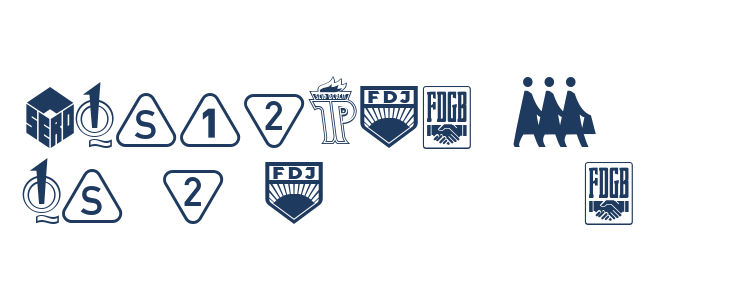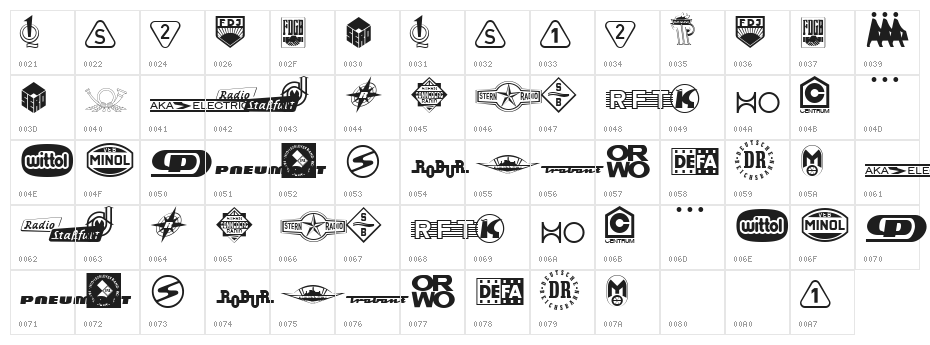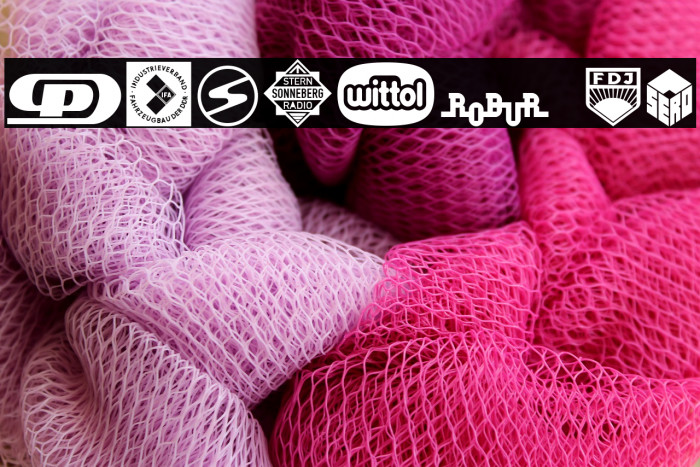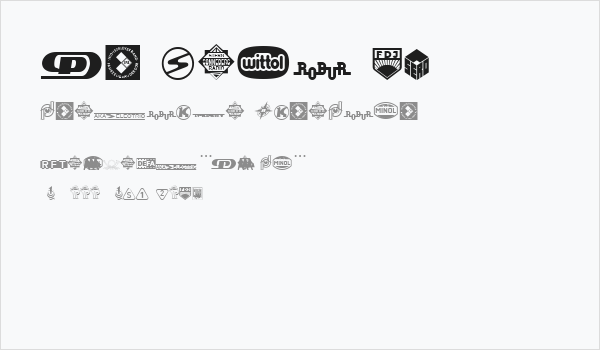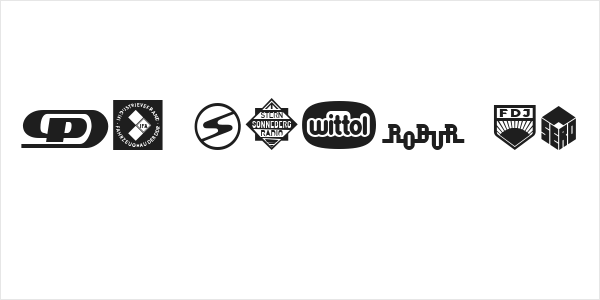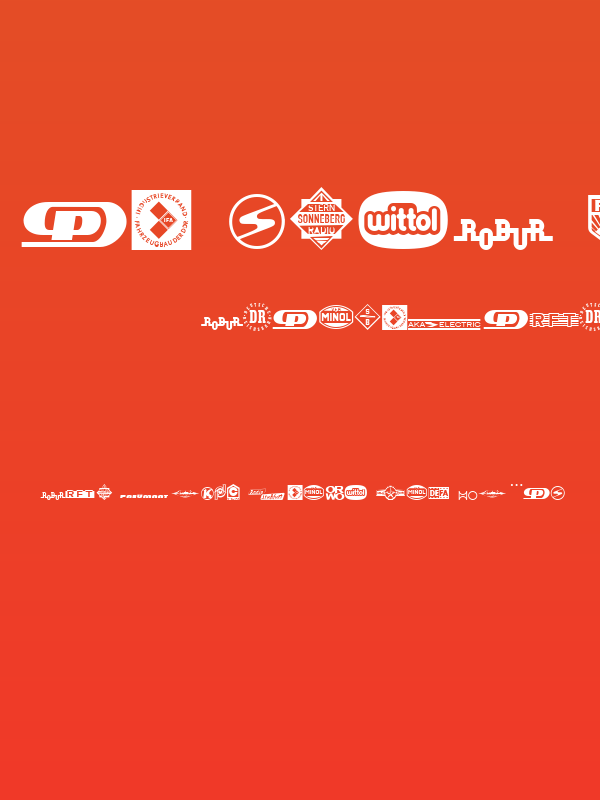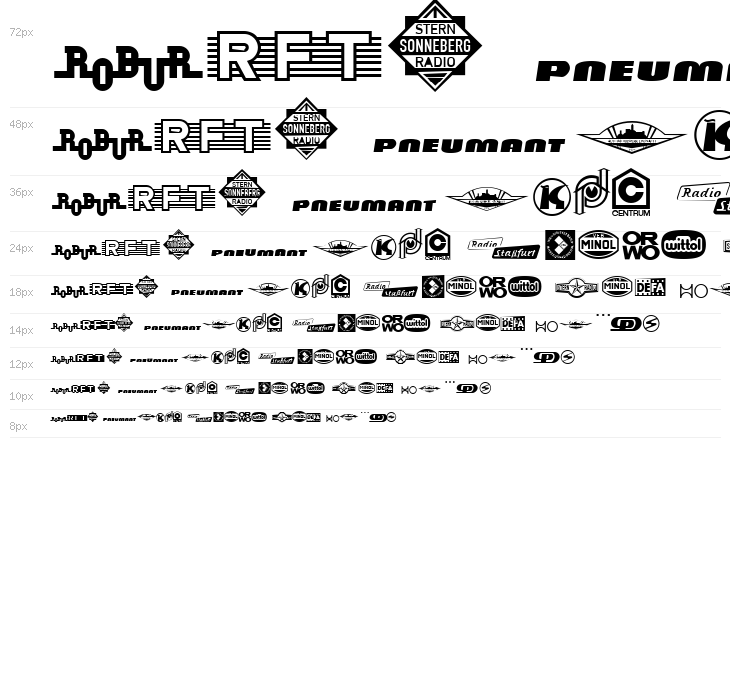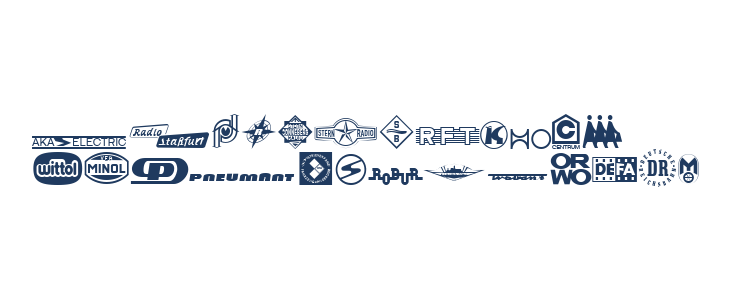
A collection of stylized logos and emblems with a retro, industrial aesthetic, featuring bold geometric shapes, outlined and filled text, and various iconographic elements. The set includes both text-based and pictorial designs, with a mix of condensed and normal widths, and a generally high contrast between strokes and fills.
| Overall Style | Vintage, Industrial, Decorative |
| Use Case | Logos, Badges, Posters, Branding |
| Proposed Projects | Branding for vintage-themed projects, retro posters, industrial design, logo recreation, historical displays. |